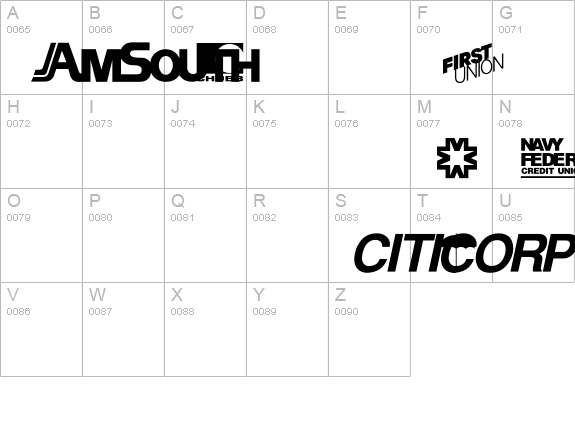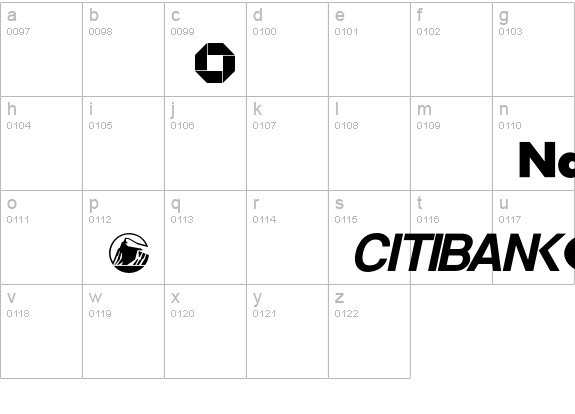
LogosFinancial Font Details
Introducing LogosFinancial font, a sleek and professional typeface designed for all your financial and business needs. This modern and clean font exudes confidence and sophistication, making it perfect for logos, branding, and marketing materials in the finance industry. With its bold yet elegant letterforms, LogosFinancial font commands attention and leaves a lasting impression on your audience. The best part? LogosFinancial font is available for free download at FontsMarket.com, allowing you to elevate your designs without breaking the bank. Whether you're creating a new logo for a financial institution, designing a website for a consulting firm, or crafting a presentation for a corporate client, LogosFinancial font is the perfect choice to convey professionalism and credibility. Download LogosFinancial font today and add a touch of refinement to your projects with this versatile and stylish typeface. Elevate your design game with LogosFinancial font, the ultimate tool for making a bold statement in the world of finance.